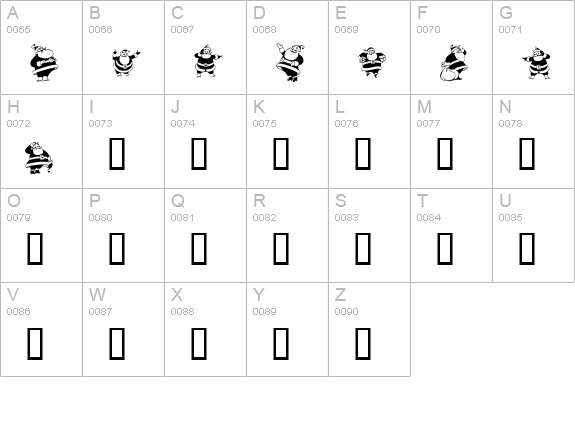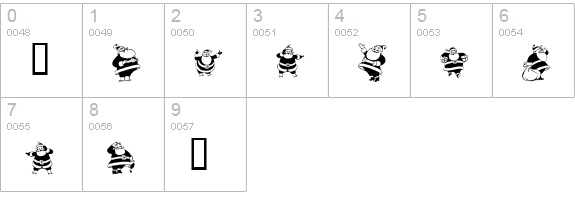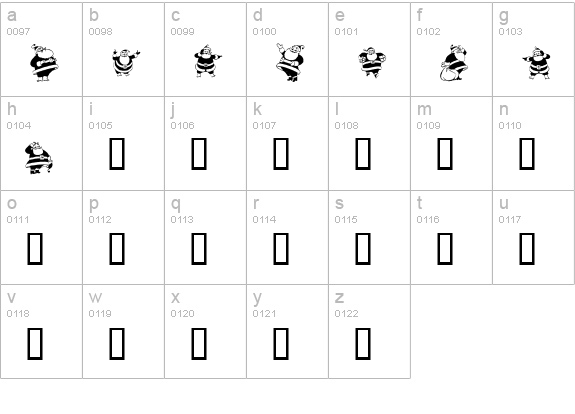
KR Eight Santas Font Details
KR Eight Santas font is a whimsical and festive typeface that perfectly captures the spirit of the holiday season. With its charming design featuring eight unique Santa illustrations for each letter, this font is sure to bring a touch of Christmas cheer to any project. Whether you're creating greeting cards, party invitations, or holiday-themed designs, KR Eight Santas font is the perfect choice to add a playful and jolly vibe. And the best part? KR Eight Santas font is completely free to download at FontsMarket.com! Simply head over to the website and grab this delightful font to use in all your holiday projects. Spread the joy and merriment of Christmas with KR Eight Santas font today!